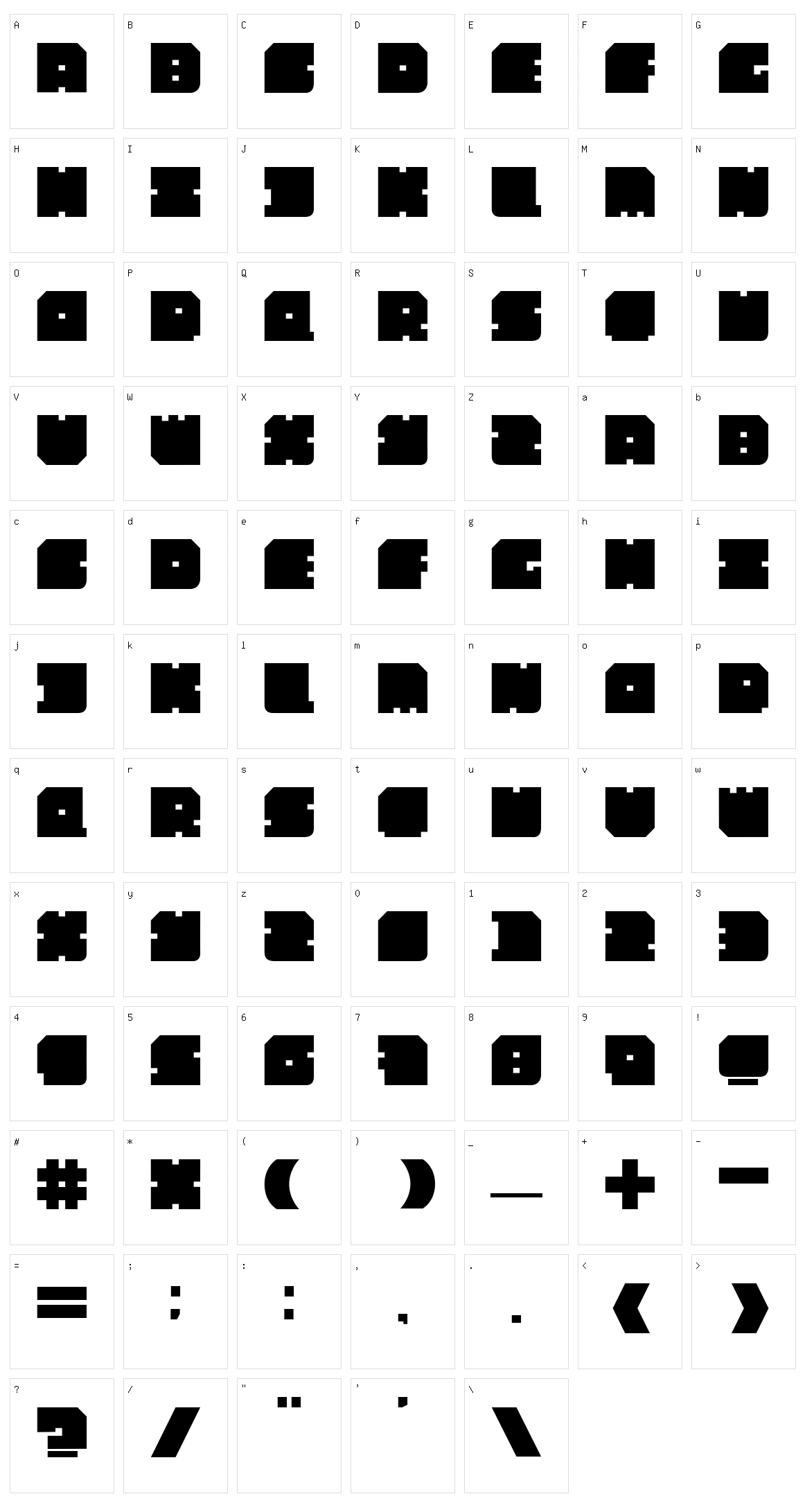
The free font Pool Party is carefully designed by Isaac Pedraza, showcasing a thoughtful balance of creativity and usability and falls under the Square font style. When you download the ZIP file, it contains only 72.3 KB of font files, making it lightweight and quick to download. Please review the license details below to understand permitted usage and distribution rights. If license information is not available, we recommend using this font for personal projects only or contacting the author directly for commercial usage permissions.
Created by isaac pedraza